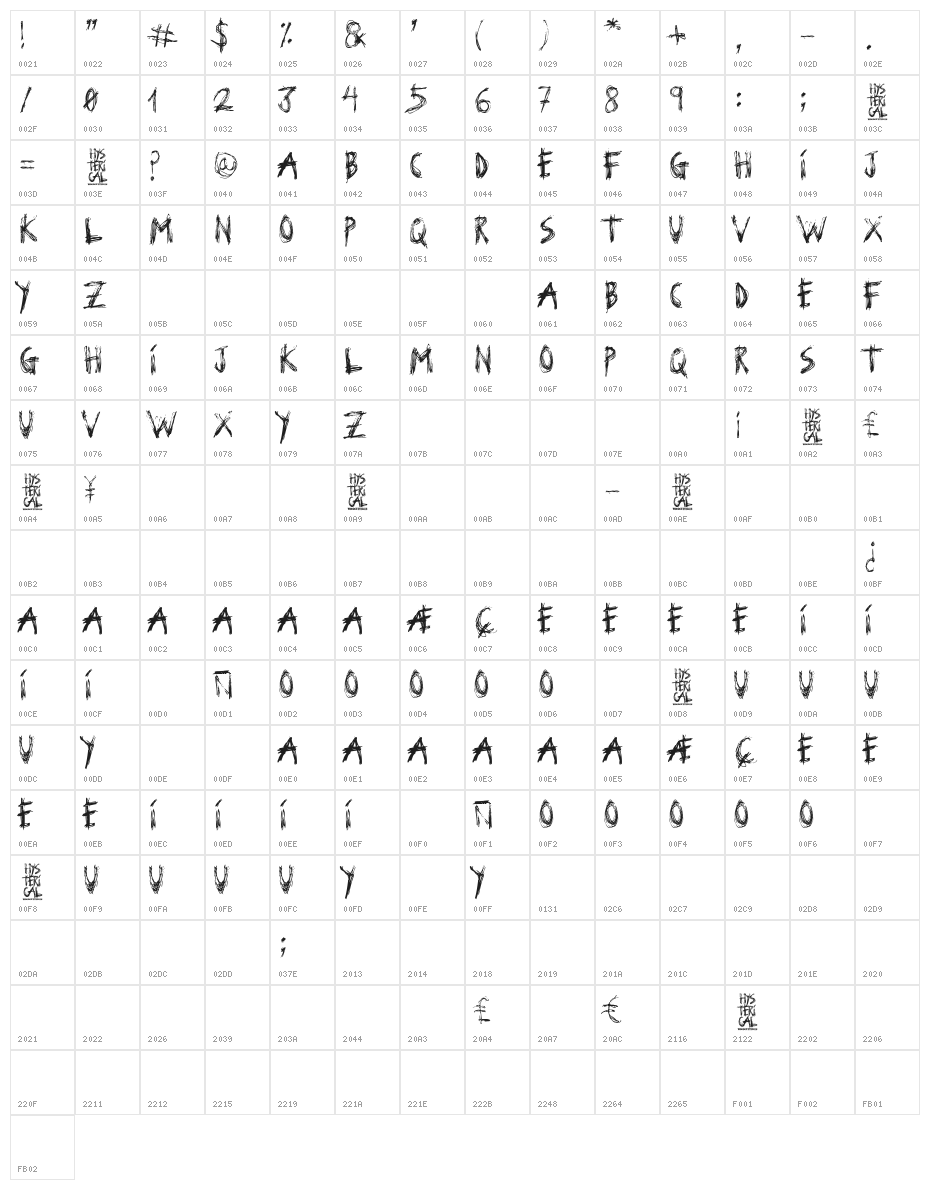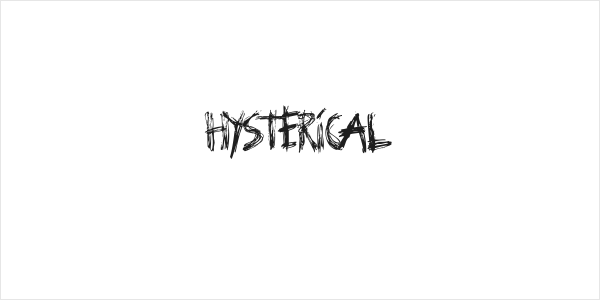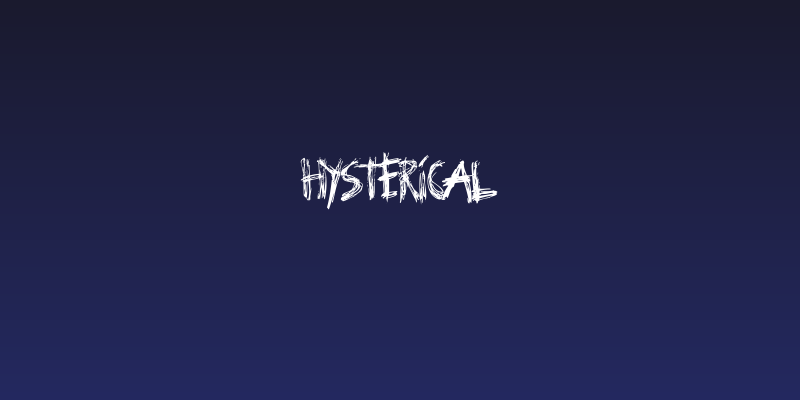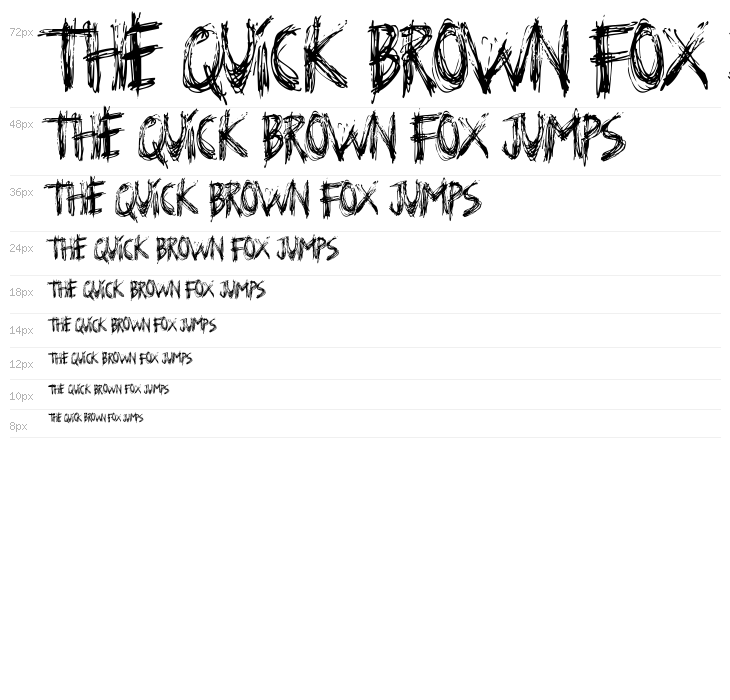
Hysterical Font
Hysterical Description
This font exudes a chaotic and energetic vibe, characterized by its jagged, irregular strokes that mimic a hand-drawn, graffiti-like style. The letters are bold and expressive, with a sense of movement and spontaneity. The uppercase and lowercase letters maintain a consistent style, with exaggerated serifs and uneven lines that add to the overall dynamic appearance. Numbers and special characters follow the same aesthetic, ensuring a cohesive look across all elements. This font is perfect for projects that require a bold, unconventional statement, capturing attention with its raw and edgy design.
| Overall Style | Modern, Edgy |
| Use Case | Headlines, Posters, Branding |
| Proposed Projects | Ideal for album covers, street art posters, edgy branding, and rebellious-themed designs. |